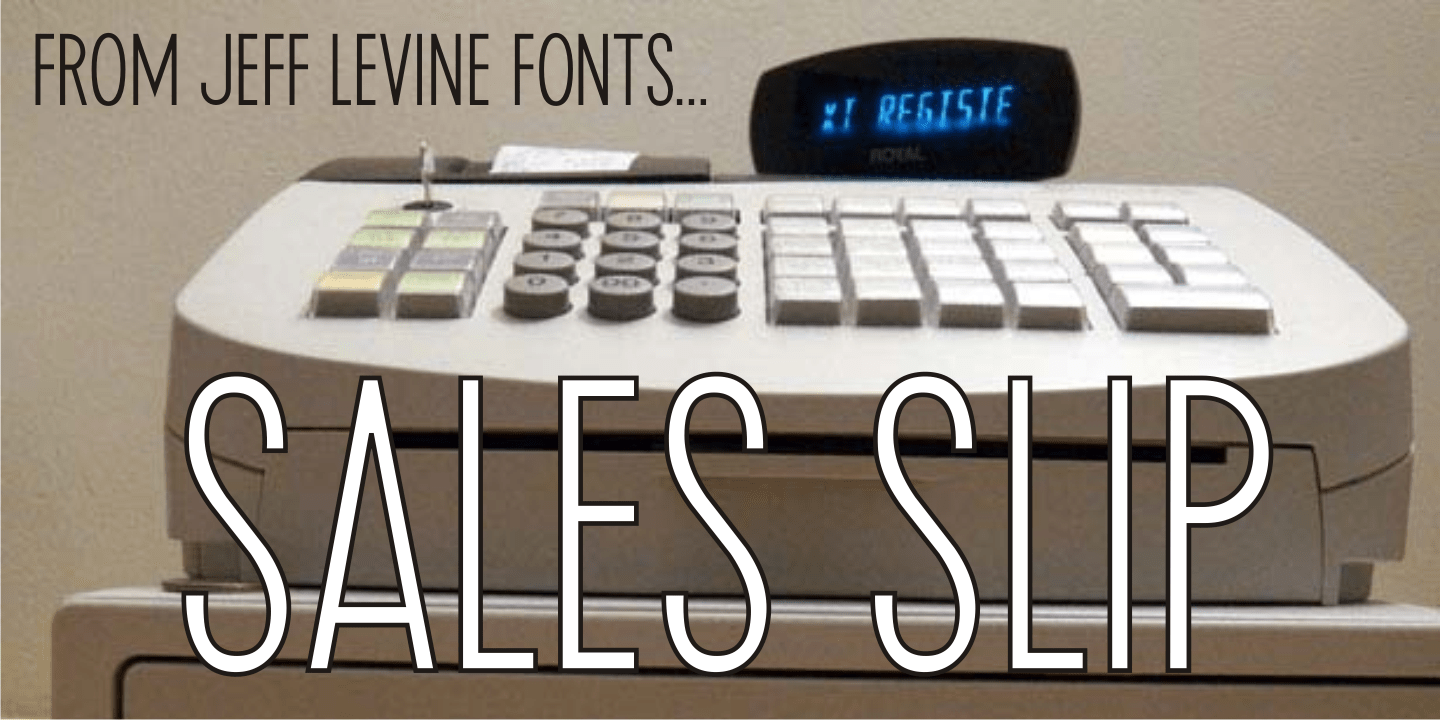
Sales Slip
Sales Slip JNL is derived from the core lettering of Sales Book JNL, an outline font with a cast shadow; modeled from wood type examples found in an old printer's supply catalog.
Sales Slip JNL Regular by Jeff Levine Fonts